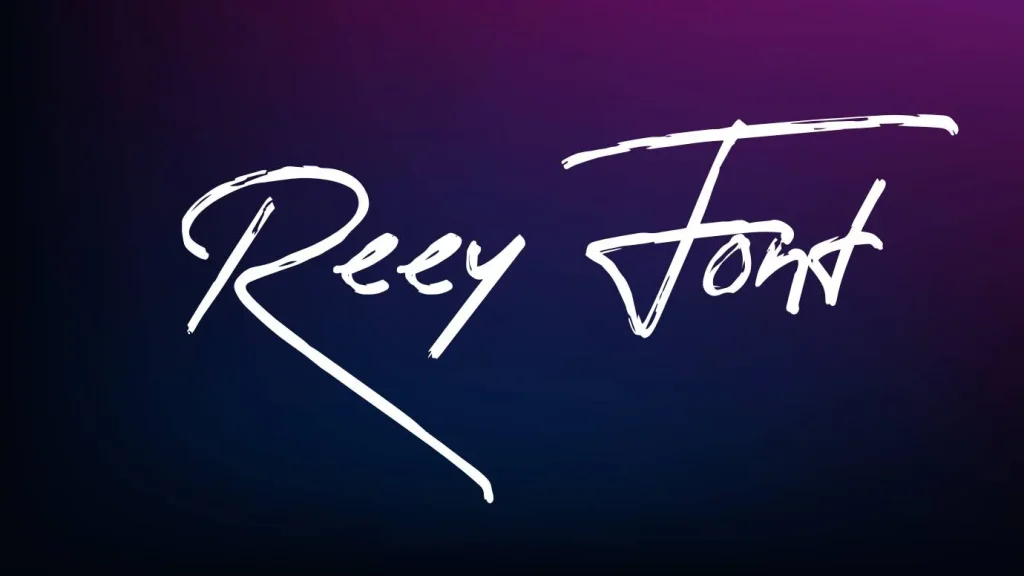
Reey Font is a modern script typeface that has a brush look. This stylish font was designed by Koen van der Bliek.  The font is beautifully designed and has an attractive appearance it also displays flexibly formed letters due to their strong curves.
If you are looking for a font with lots of traits, this lettering style will be a flawless choice. To make a design that is both exclusive and attention-grabbing, you can pair this font with any other typeface.
Also appropriate for artwork and banner design. There are smaller capital letters in it. Using this typeface in combination with many other typefaces can truly assist you to produce an original and eye-catching style.
Your simple designs will look bold and stylish with this style. It’s ideal for giving your work uniqueness as well as making it differentiate itself from other typefaces. Due to its eye-catching design, this typeface is commonly used in a lot of stylish projects
Glyphs and Characters of Reey Font
This typeface contains unique glyphs and characters the design may be an incredible choice for any task that needs a touch of class. Get it and include a stylish touch to the next task.
This typeface style was inspired by some other brush typefaces and it is much closer to the Alex Brush Font you can check out.
View of Reey Font
What is the type of Reey Font?
This awesome typeface is categorized as script handwritten font and developed by Koen van der Bliek.
Is there any similar to Reey typeface?
Yes, there are a number of typefaces that are similar to this texture but the antique font is the best alternative to this family.